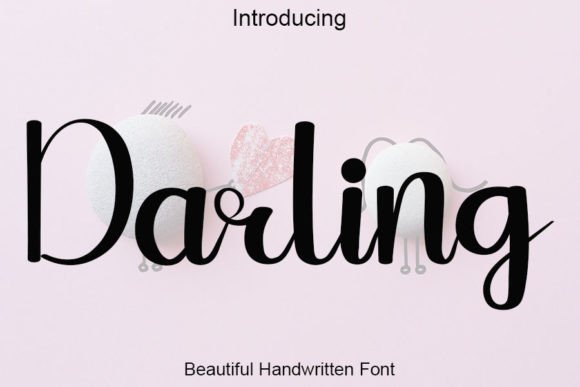
Darling Font: Elegant Handwriting for Your Designs
“Darling” is a charming handwritten font that adds sophistication to your projects. Its neat characters make it perfect for various applications, from personal to professional use.
Key Features of Darling Font
- Timeless Style: Darling maintains its appeal over time, unlike trendy fonts.
- Elegant Letterforms: Graceful characters evoke craftsmanship and attention to detail.
- Versatile Use: Suitable for many projects, from wedding invitations to branding materials.
Personal Creations
Darling helps you create polished greeting cards, custom artwork, and DIY projects. It adds a professional touch to your personal designs.
Professional Design
Use Darling for product packaging, advertising materials, and brochures. Its distinct style makes your branding projects more memorable.
Luxury Branding
The font’s refined look is ideal for luxury products or services, adding a touch of sophistication to high-end brands.
Why Choose Darling Font?
Darling offers more than just beautiful letters. Here’s why it stands out:
- Adapts to various design themes (classic, vintage, modern)
- Enhances visual appeal of projects
- Helps create designs that are truly spectacular
By using Darling, you open up new design possibilities. Its elegant style works well in many contexts, from logo design to social media graphics.
If you want a font that’s both charming and sophisticated, Darling is an excellent choice. It’s perfect for adding elegance to your work, especially for projects that need a refined touch.
Explore how Darling can transform your designs. From personal projects to professional branding, this font brings a magical and timeless feel to your creations.